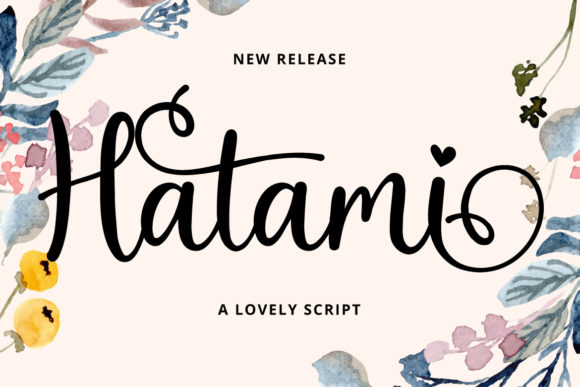
Immerse yourself in the enchanting world of Hitami Font, a script typeface that dances across your screen with grace and elegance. Crafted by the skilled hands of Fallengraphic, this meticulously designed font is a true masterpiece, ready to transform your creative projects into breathtaking works of art.
With its delicate strokes, flowing curves, and a varying baseline, Hitami Font adds a touch of sophistication and charm to every design. Its smooth lines and gorgeous glyphs invite you to explore the world of calligraphy, while its stunning alternates provide endless possibilities for adding a unique and personal flair to your projects.
Whether you're creating Christmas letters, heartfelt invitations, whimsical posters, or captivating social media content, Hitami Font is the perfect choice. Its versatility knows no bounds, allowing you to express your creativity in countless ways.
Picture the joy on your loved ones' faces as they receive a heartfelt Christmas letter penned in the beautiful Hitami Font. The intricate details and elegant curves will convey your warmest wishes in a way that words alone cannot.
Imagine the awe and admiration your audience will feel when they lay their eyes upon your posters, adorned with the captivating Hitami Font. Its delicate strokes will draw them in, inviting them to explore the depths of your message.
And when you grace your social media feeds with captivating content adorned in Hitami Font, you'll leave a lasting impression that sets you apart from the crowd. Its unique and eye-catching style will make your posts shine, ensuring your message reaches a wider audience.
With Hitami Font as your creative companion, the possibilities are endless. Unleash your imagination, let your creativity soar, and bring your designs to life with the elegance and charm of this exceptional font.